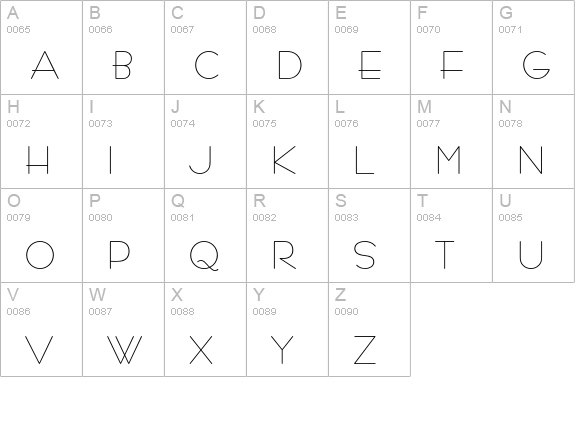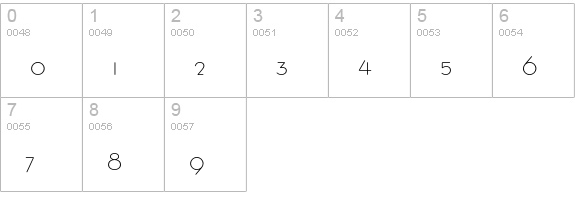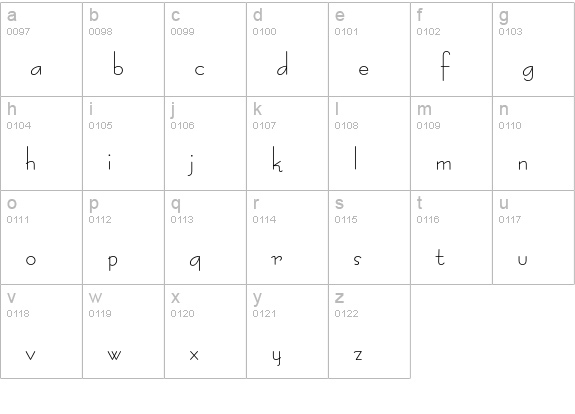
BernhardEF-Fashion Font Details
BernhardEF-Fashion font is a stylish and modern typeface that exudes sophistication and elegance. With its sleek lines and unique design, this font is perfect for projects that require a touch of luxury and class. Whether you're designing a fashion magazine, creating glamorous branding materials, or crafting eye-catching advertisements, BernhardEF-Fashion font is sure to make a bold statement. The best part? BernhardEF-Fashion font is completely free to download at FontsMarket.com. This means you can add a touch of glamour to your designs without breaking the bank. So why wait? Download BernhardEF-Fashion font today and elevate your projects to the next level.